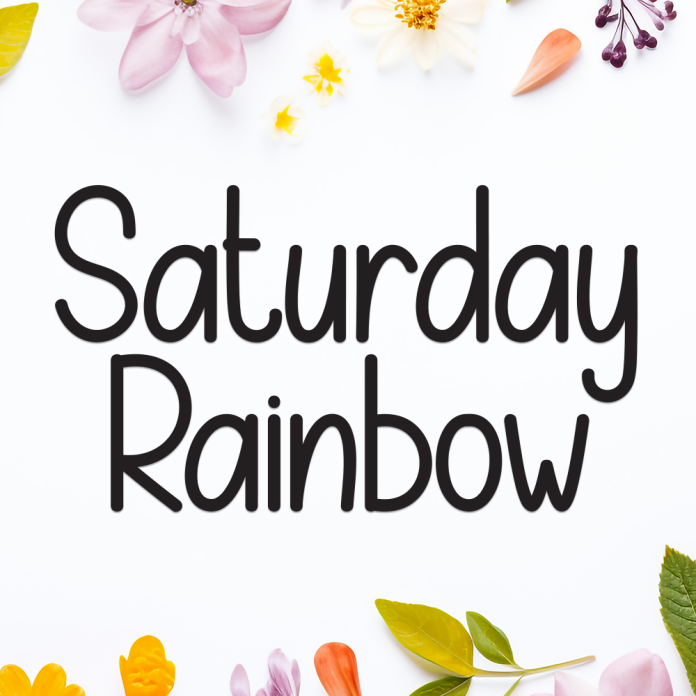
Saturday Rainbow is a cheerful and colorful-inspired display font that radiates positivity. Its bold and rounded letters make it perfect for fun, creative, and kid-friendly projects that need a burst of joy.
Playful and bold display style
Perfect for children’s books, greeting cards, and posters
Eye-catching letterforms with a happy vibe
Uppercase & lowercase letters included
Numbers and punctuation supported
Spread sunshine and smiles in your designs with Saturday Rainbow — a font that turns every day into a celebration.